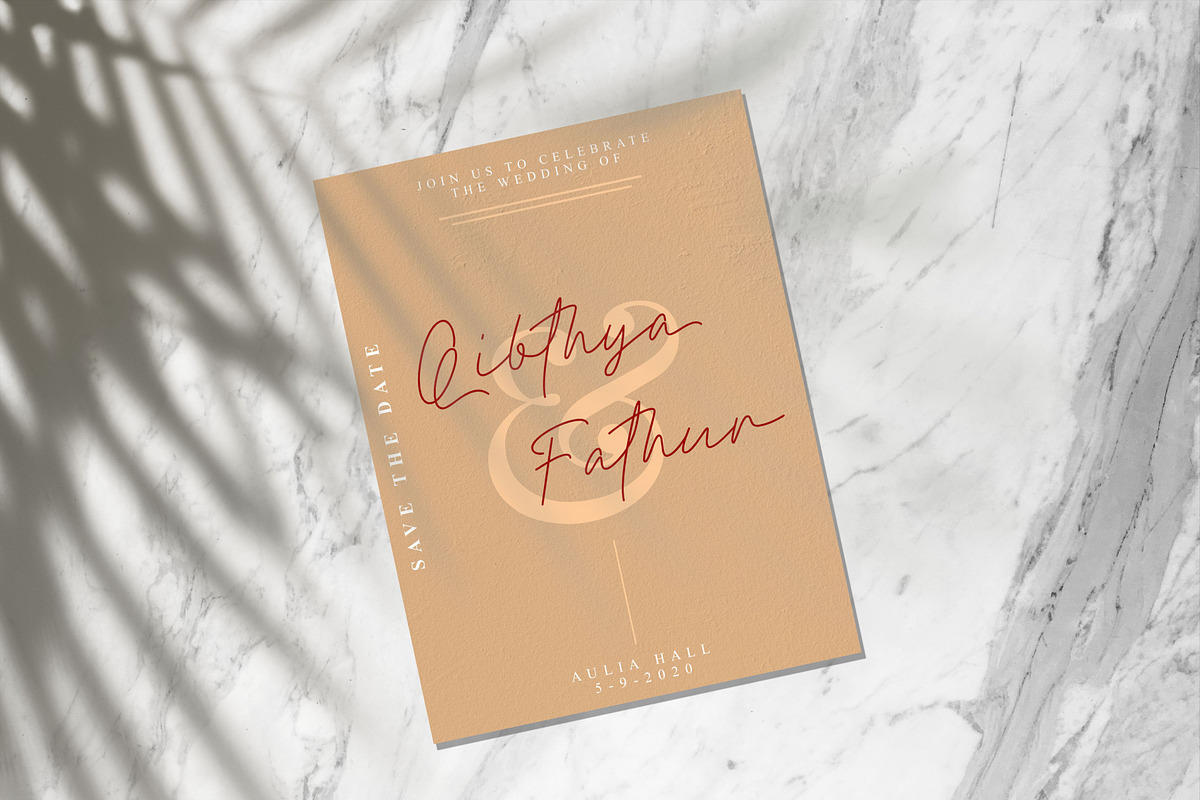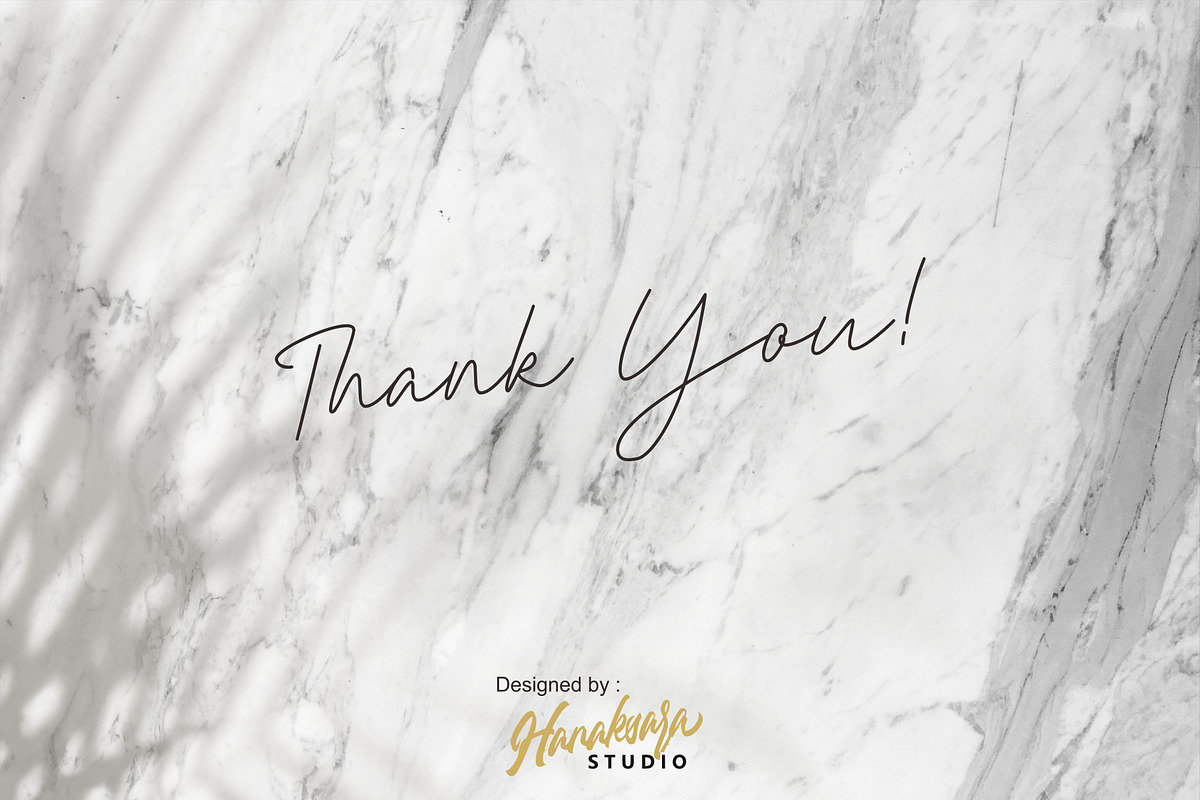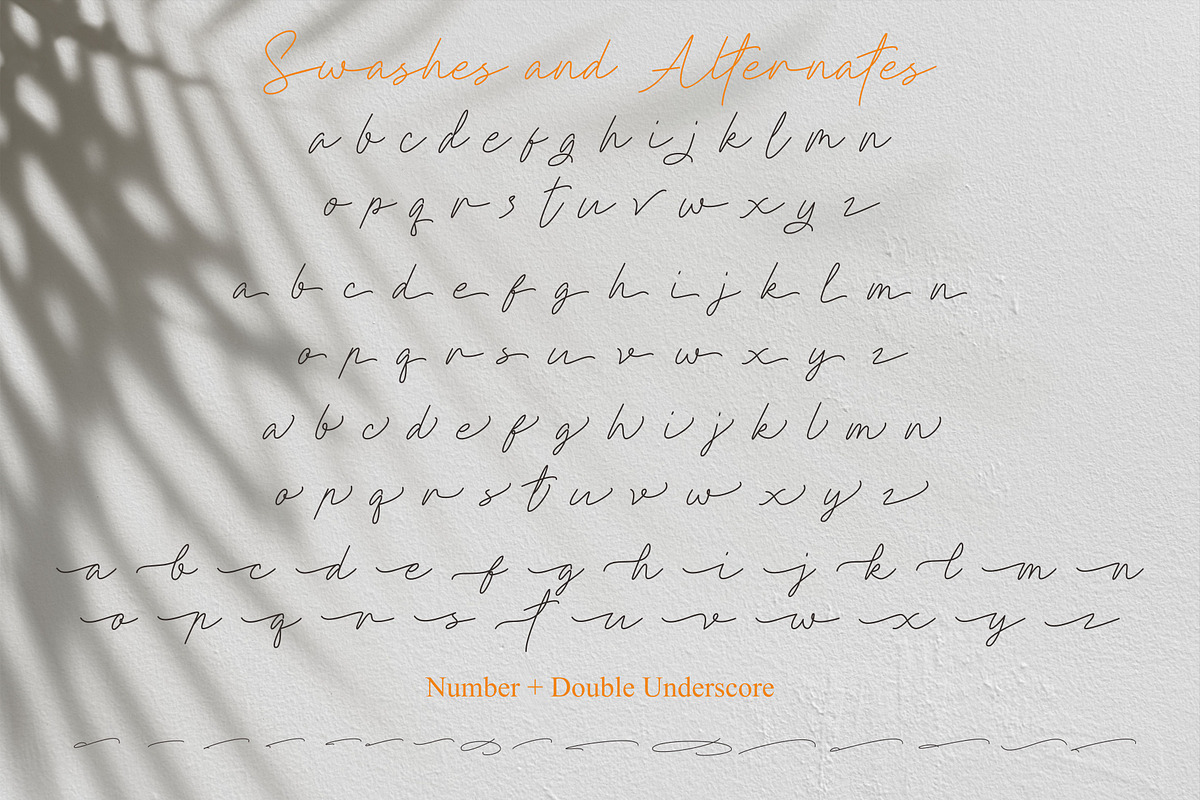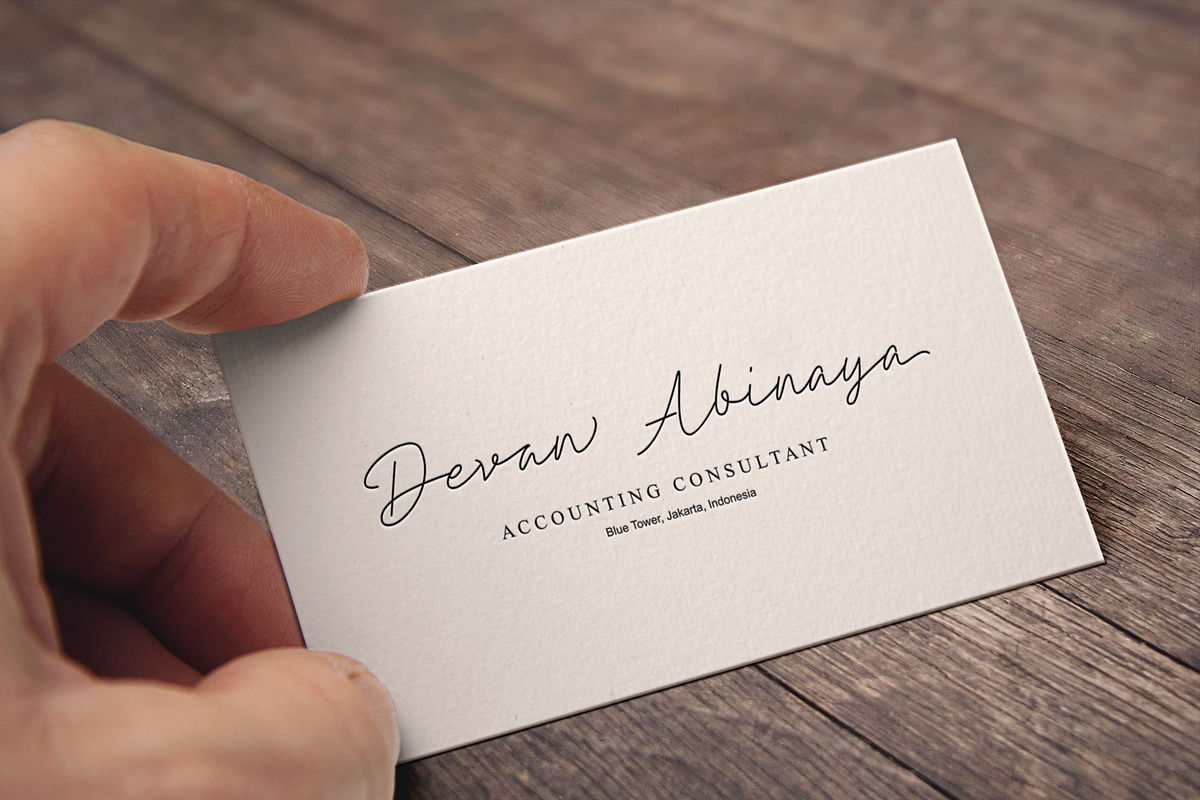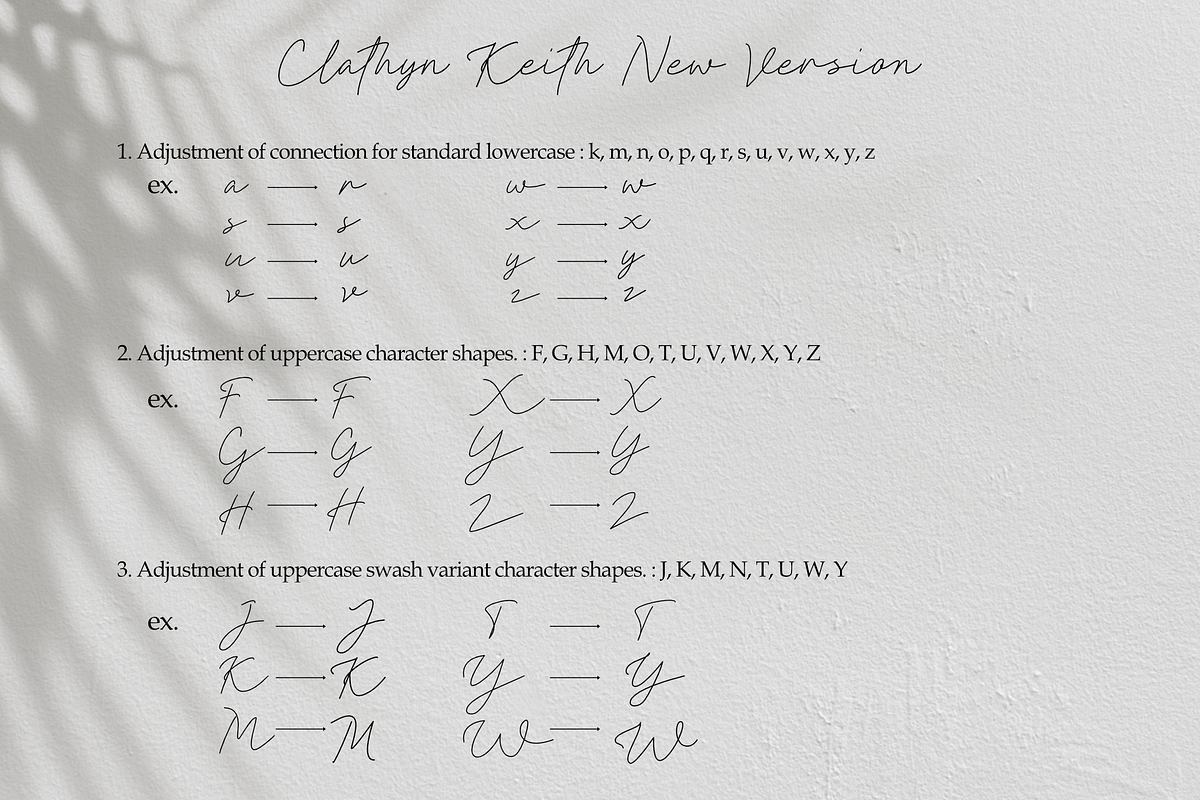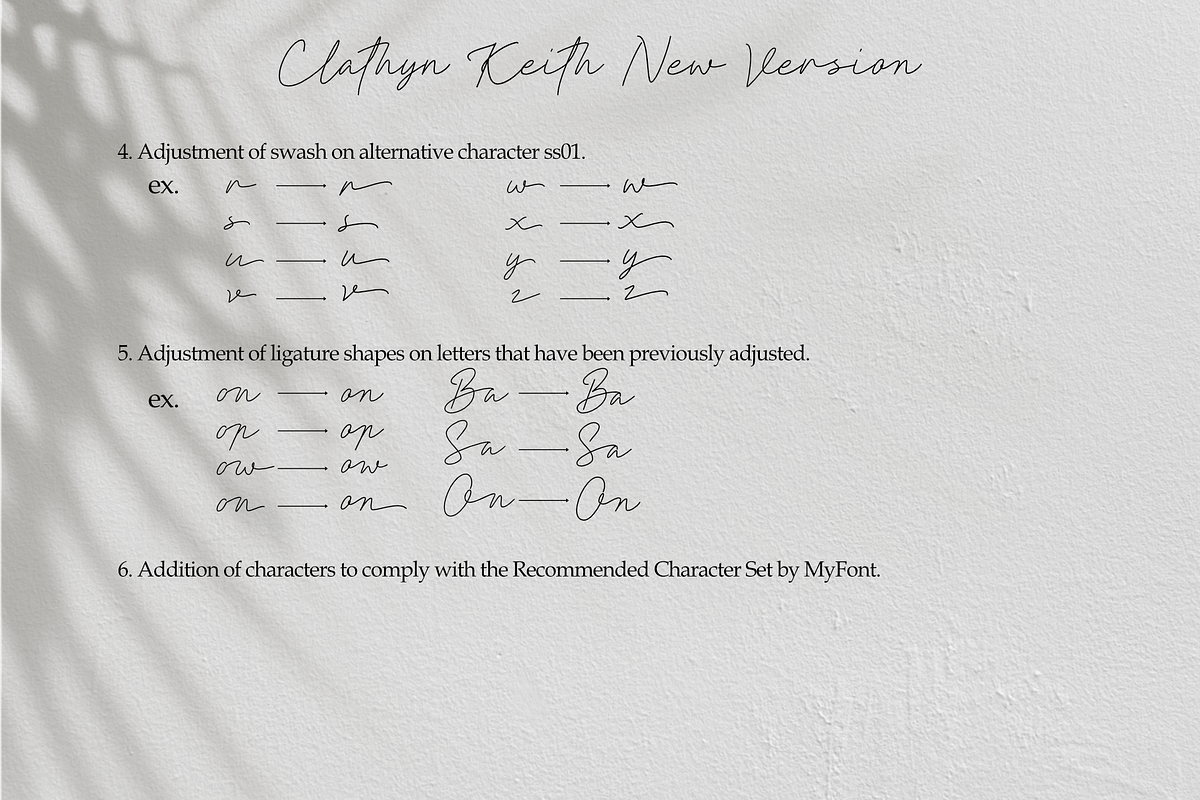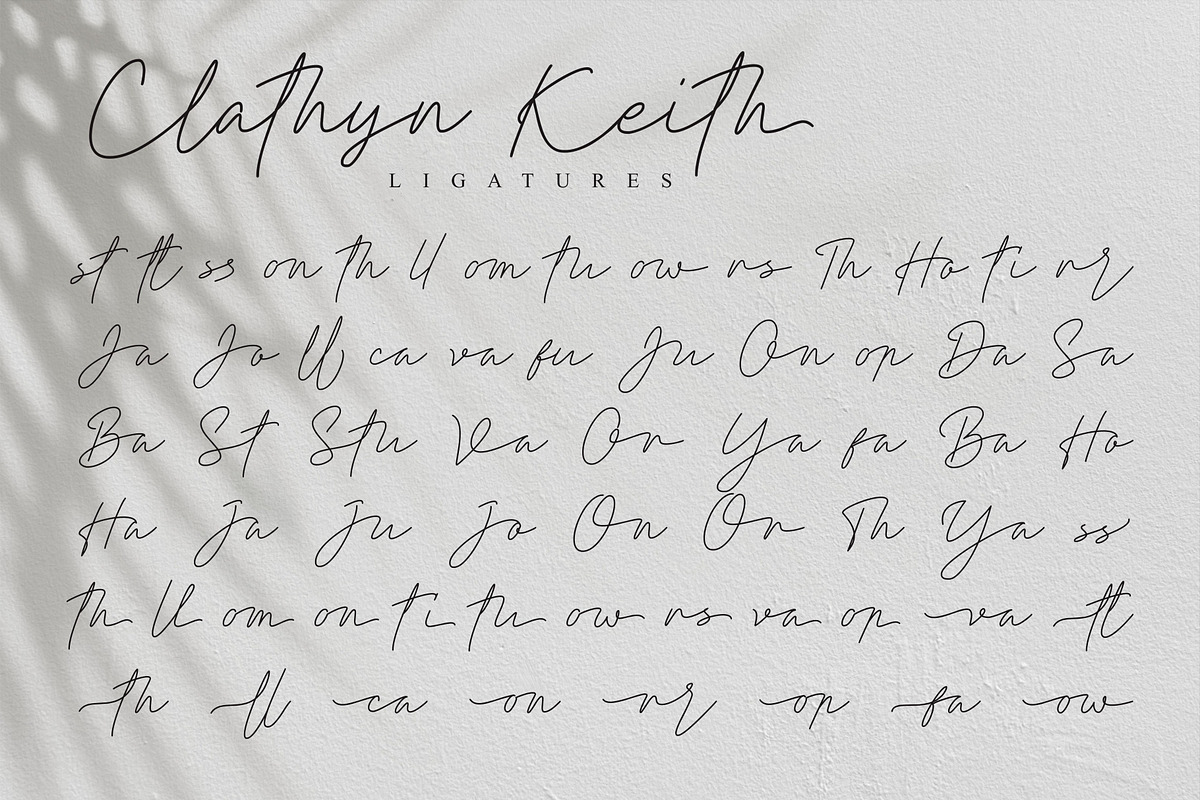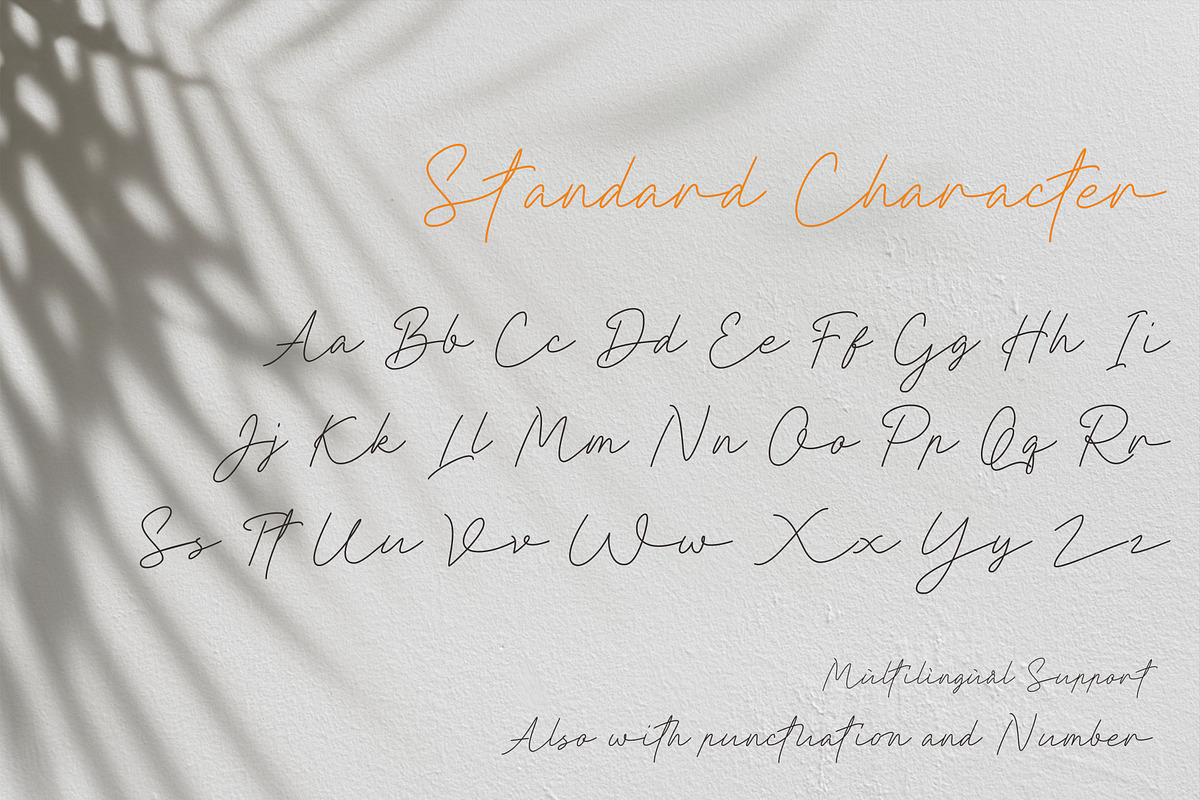
Clathyn Keith Signature
Say Hello to Clathyn Keith Signature!
Clathyn Keith is a modern signature font. It's made by hand, so it similar to natural handwriting. Clathyn Keith is really suitable for branding, signatures, packaging, wedding invitation, or logos that require an artistic and elegant impression.
Clathyn Keith is included with dozens of ligatures to keep the maximum impression of handwriting. And we also added several sets of stylistic alternate, swashes and underlines. To access underline you can easily type: Number + double underscore in the middle of sentence.
NEW UPDATE v2.0
- Adjustment of connection for standard lowercase: k, m, n, o, p, q, r, s, u, v, w, x, y, z.
- Adjustment of uppercase character shapes: F, G, H, M, O, T, U, V, W, X, Y, Z.
- Adjustment of uppercase swash variant character shapes: J, K, M, N, T, U, W, Y.
- Adjustment of swash on alternative character ss01.
- Adjustment of ligature shapes on letters that have been previously adjusted.
- Addition of characters to comply with the Recommended Character Set by MyFont.
- And other minor adjustments.